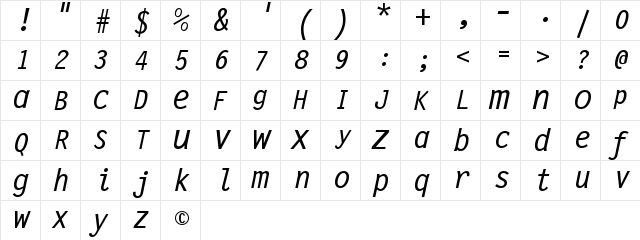
Sidewalker Regular
Design Context for Sidewalker Typeface
Sidewalker offers clean, dependable letterforms without strong stylistic allegiance, making it a practical choice for designers who need flexibility.
Pro Tip: Use Sidewalker in both headline and body roles to test its range before committing to a single application.